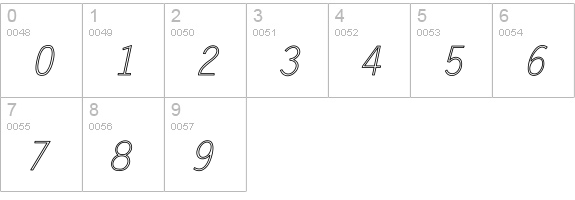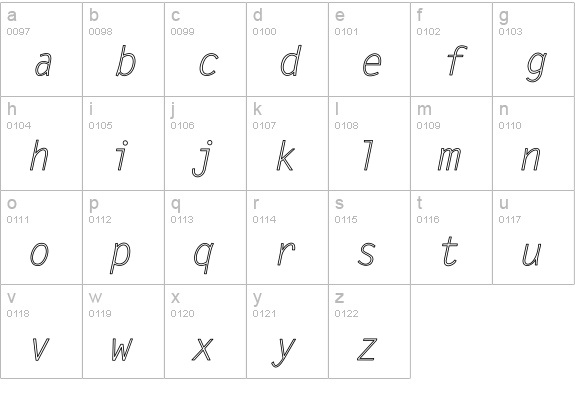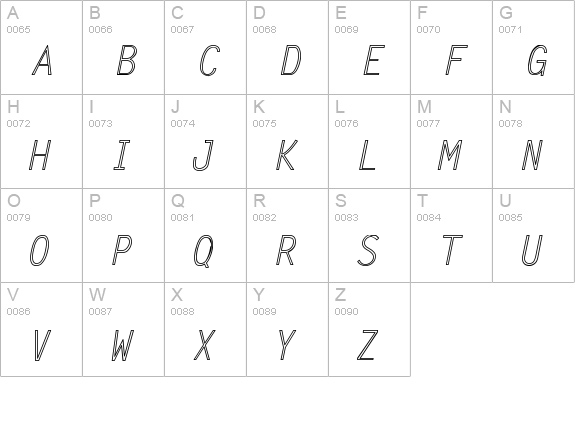
LetterGothic-Italic Hollow is a distinctive, italic variant in the LetterGothic typeface family \xE2\x80\x94 well suited to design and typography projects.
LetterGothic-Italic Hollow is a unique and eye-catching font that is sure to make a bold statement in any design project. With its sleek and modern design, this font is perfect for adding a touch of elegance and sophistication to your work. The italicized hollow letters give an edgy and contemporary feel, making it ideal for logos, headlines, posters, and more. This font is not only visually striking but also highly versatile, making it suitable for a wide range of applications. Whether you're designing a website, creating a magazine layout, or working on a branding project, LetterGothic-Italic Hollow will add a touch of professionalism and style. What sets this font apart is that it is completely free to download. Yes, you read that right! You can get your hands on this amazing font without spending a dime. Simply head over to FontsMarket.com, where it is freely available for download. This means that you can use it in both personal and commercial projects without any restrictions. LetterGothic-Italic Hollow is designed with precision and attention to detail, ensuring that every curve and line is flawless. Its smooth and clean appearance makes it highly readable, even at smaller sizes. The hollow effect adds a sense of depth and dimension, making the letters stand out on the page. So why wait? Download LetterGothic-Italic Hollow today and take your designs to the next level. Whether you're a professional designer or just starting out, this font is a must-have in your collection. With its stylish and modern look, it will undoubtedly elevate your projects and leave a lasting impression on your audience. Don't miss out on this fantastic opportunity to enhance your designs with a high-quality, freely available font. Visit FontsMarket.com now and get your creative juices flowing!